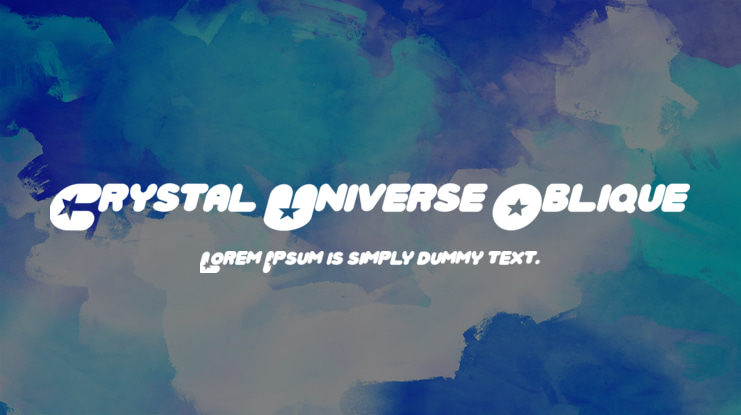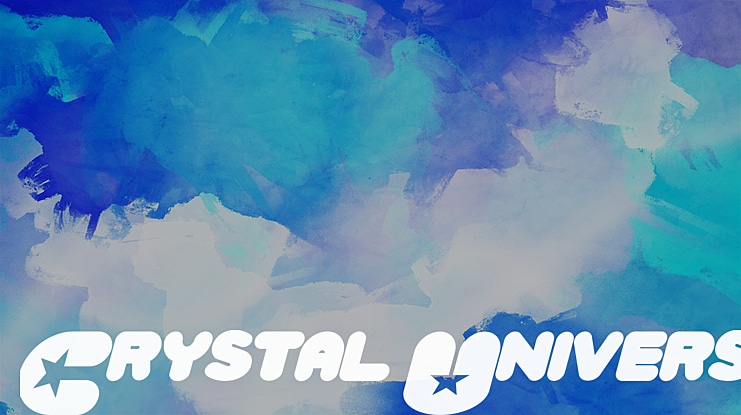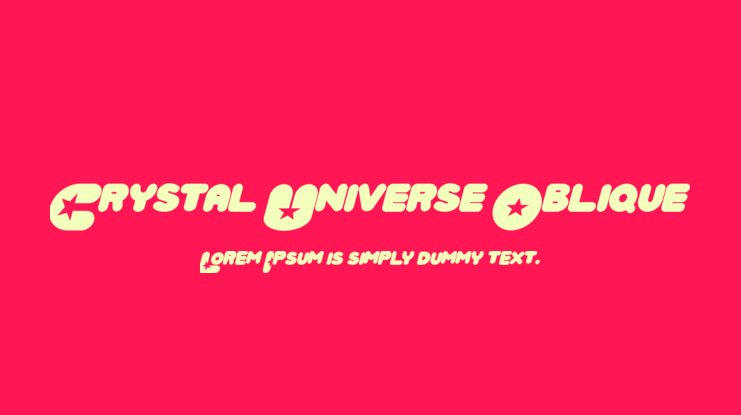
Crystal Universe Oblique Font Family
This time, I decided to replicate Steven Universe's logo font! This was very long but fun to do and I'm glad that my line of Steven Universe fonts is coming to an end with this font I wanted to do for a while, now.
The font, packaged in a ZIP file, comes in OTF and TTF formats and in TWO styles: Regular and Oblique. FYI, Oblique means that the text is slanted to the right just like italic (I won't go into details, but oblique and italic actually aren't the same). It's slanted just like the logo, so you won't need to do an extra step and slant it yourself.
CRYSTAL UNIVERSE FONT
Crystal Universe is a font that replicates the font used for the logo of the animated television show Steven Universe (tm).